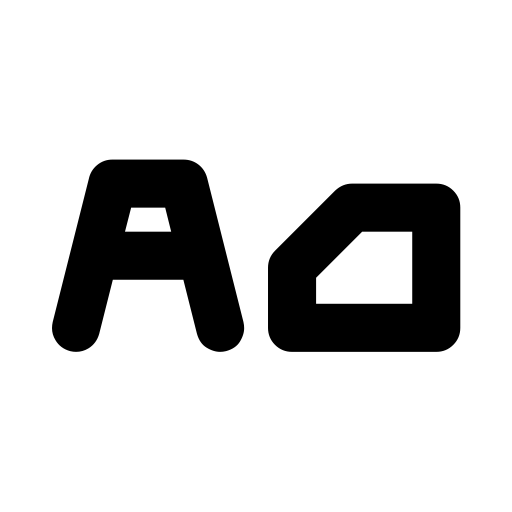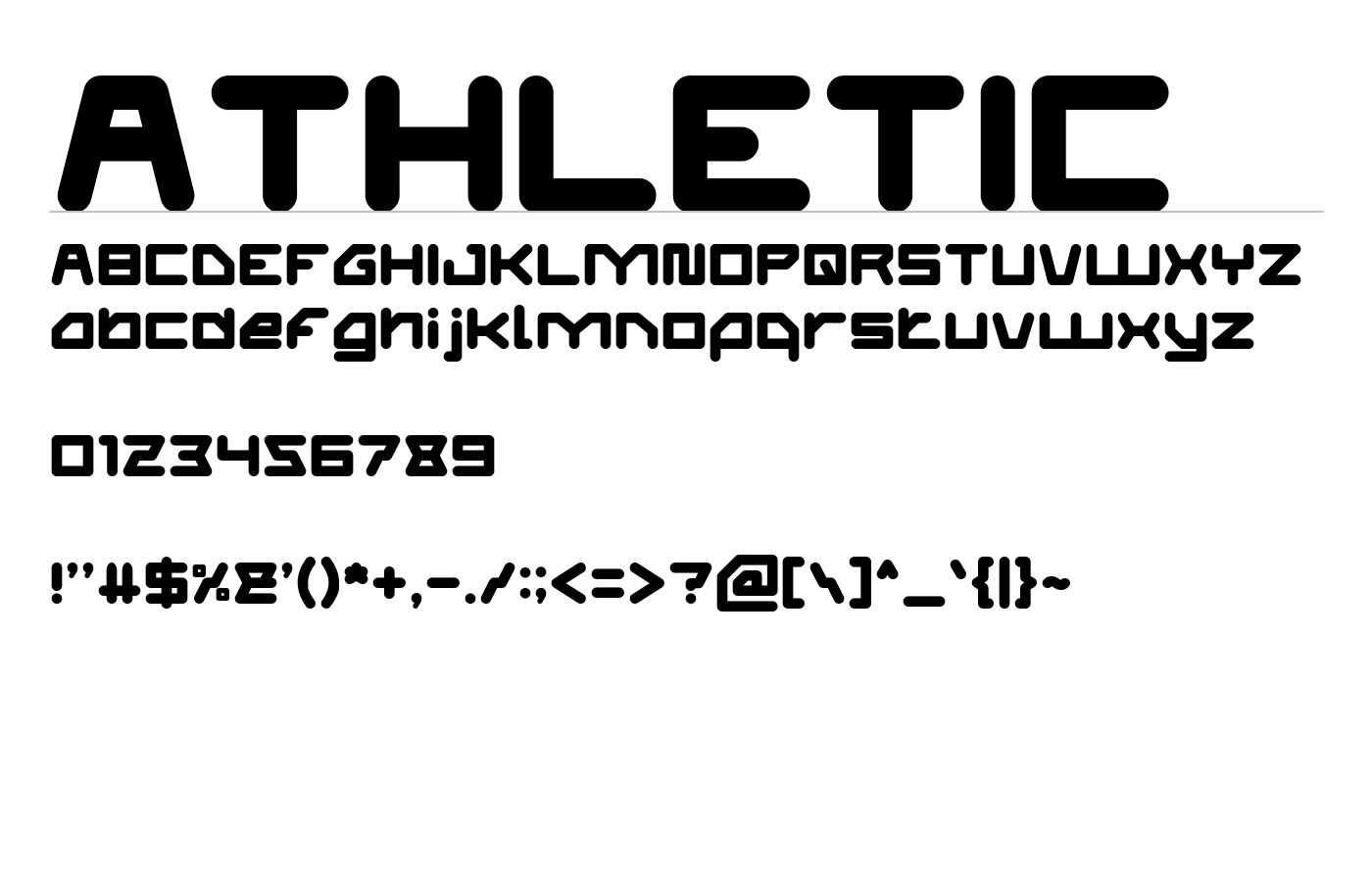
The ATHLETIC font is a bold, geometric sans serif with a modern, sporty feel that emphasizes strength and clarity. Its wide, blocky letterforms with rounded corners and consistent stroke weight convey a dynamic and energetic personality, making it ideal for athletic branding, posters, and headlines where impact and legibility are key. This font works well for projects seeking a contemporary, robust style that stands out with a clean, confident presence.
ATHLETIC Font
About ATHLETIC Font